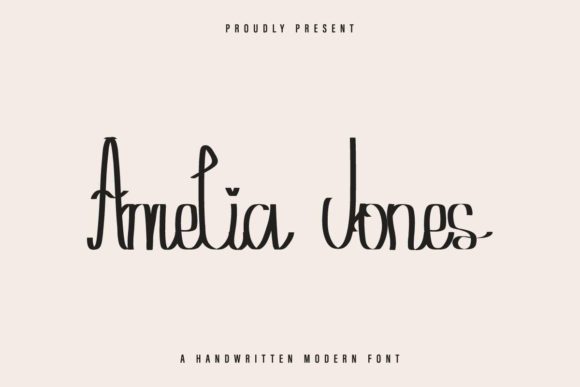
The Quest for the Perfect Font: Discovering Amelia Jones
I still remember the design project that led me to Amelia Jones Font. I was working on a branding project for a boutique client, and I was struggling to find the perfect handwritten font that would capture the essence of her elegant and playful brand. The client had a clear vision of what she wanted, but I was having a hard time finding a font that met her expectations. That was when I stumbled upon Amelia Jones, and it was love at first sight! 💕
An Honest Review of Amelia Jones Font
So, what makes Amelia Jones so special? Let’s dive into the good stuff! 😊
• ✨ Beautifully balanced design: Amelia Jones has a flowing and distinct style that makes it perfect for a wide range of contexts, from branding and advertising to packaging and digital media.
• 💫 Stunning alternates and glyphs: Amelia Jones features a varying baseline, smooth lines, gorgeous glyphs, and stunning alternates that will take your designs to the next level.
Now, let’s talk about some small quirks or limitations ⚠️:
• 🤔 Some users may find the font a bit too ornate: While Amelia Jones is a beautiful font, it may not be the best fit for very minimalist or modern designs.
• ⚠️ May require some getting used to: As with any new font, it may take some time to get used to the unique characteristics and quirks of Amelia Jones.
The Story Behind Amelia Jones Font
Amelia Jones Font was designed with love and care by a talented type designer who wanted to create a font that would capture the essence of elegance and playfulness. The designer was inspired by the beauty of handwritten scripts and the versatility of modern typography. 💫
Font Name Amelia Jones Font
Author EdricStudio